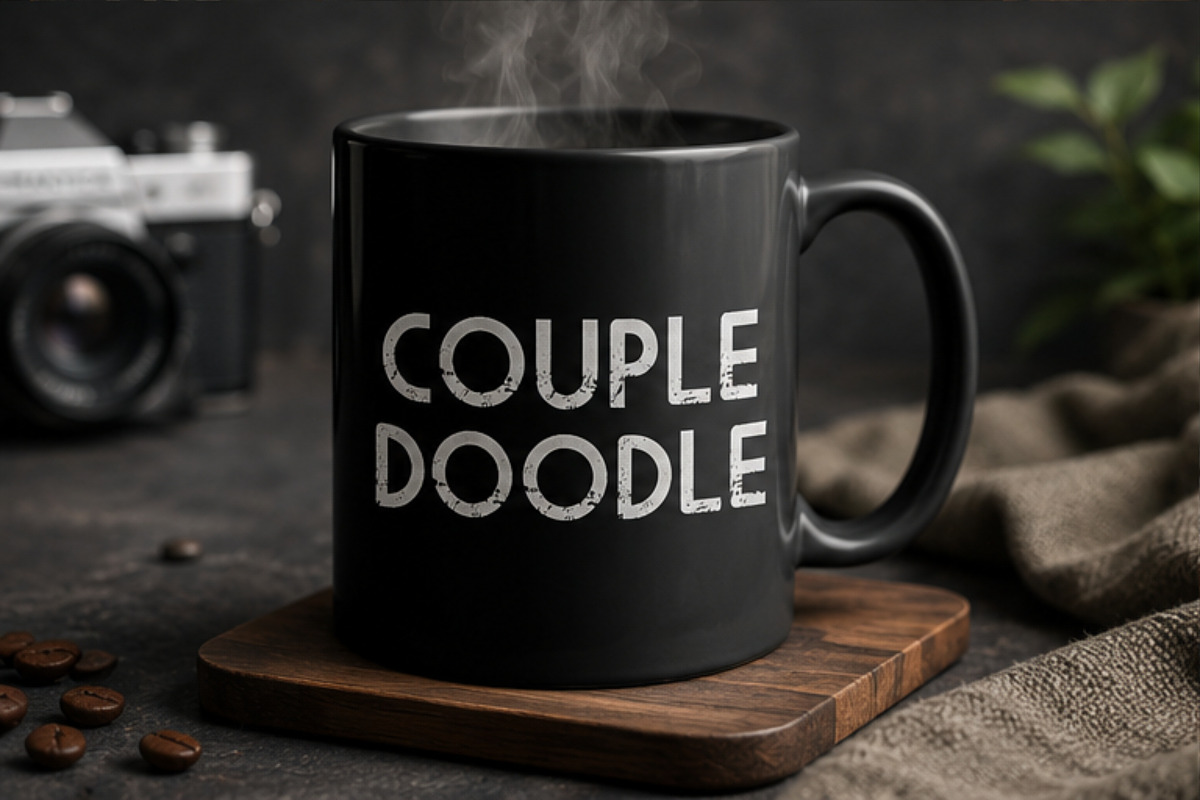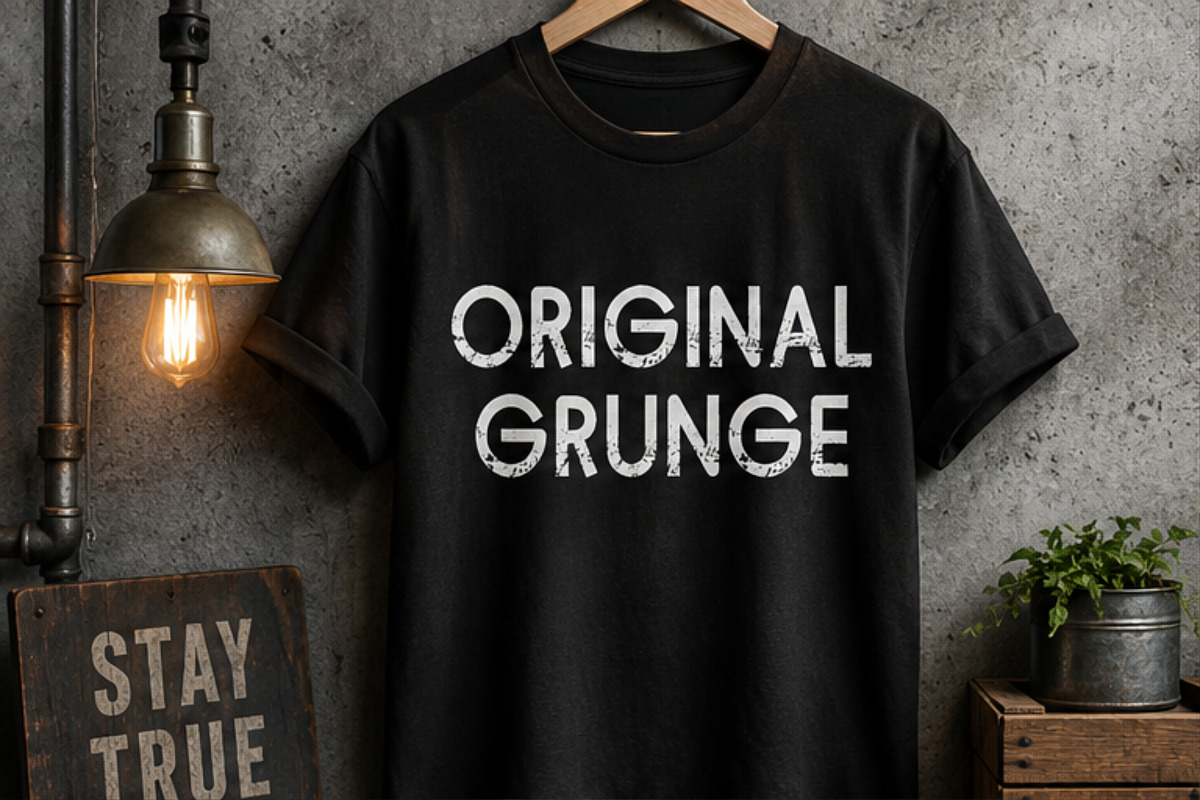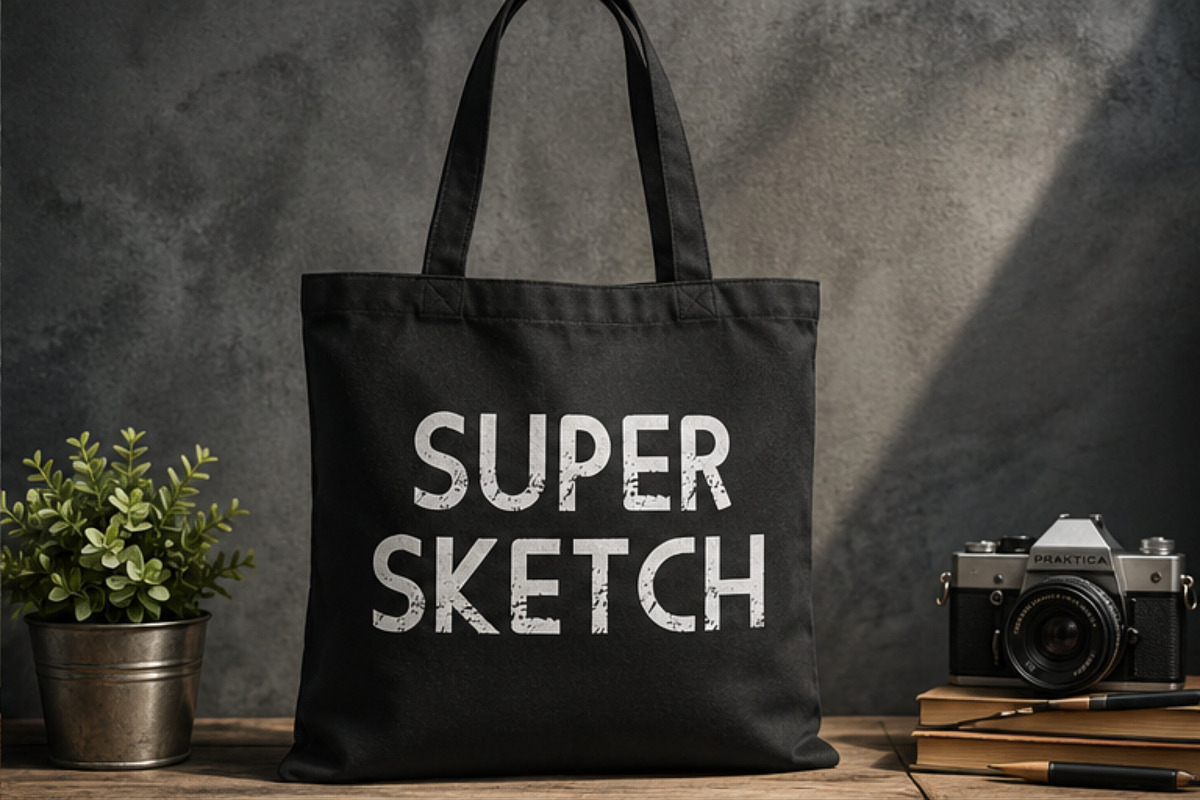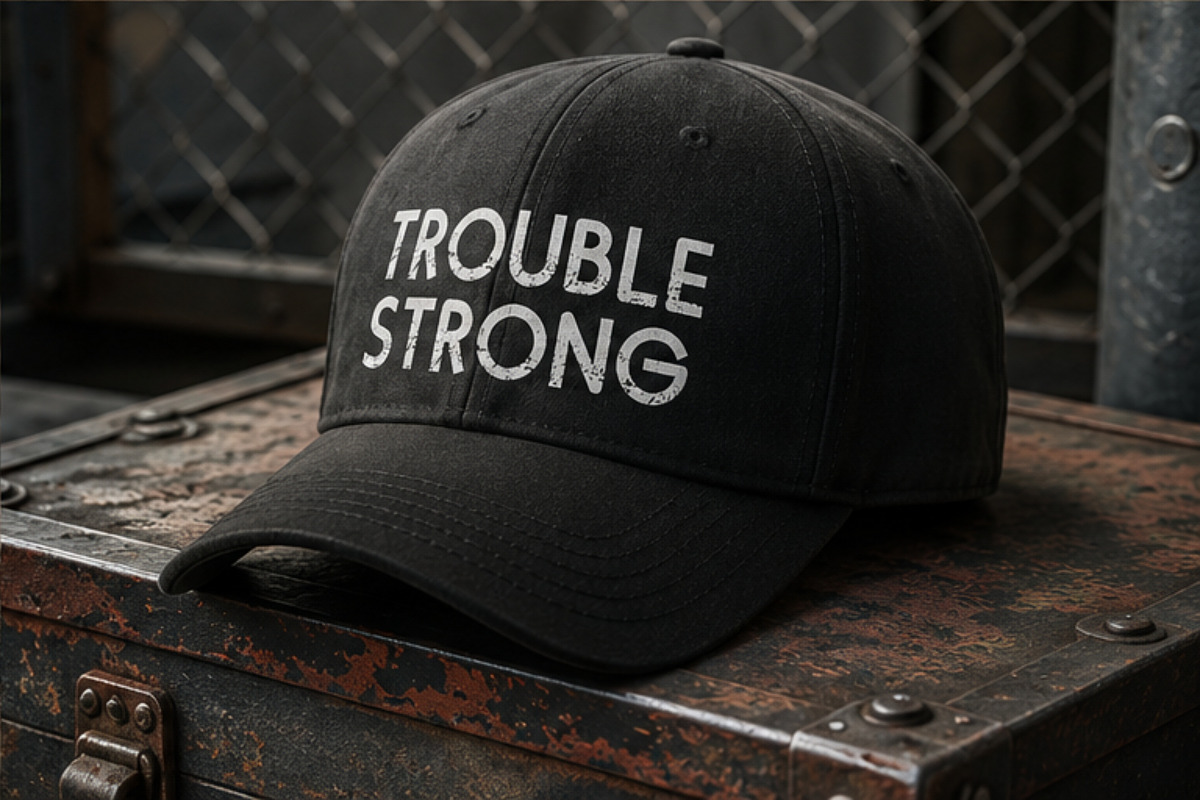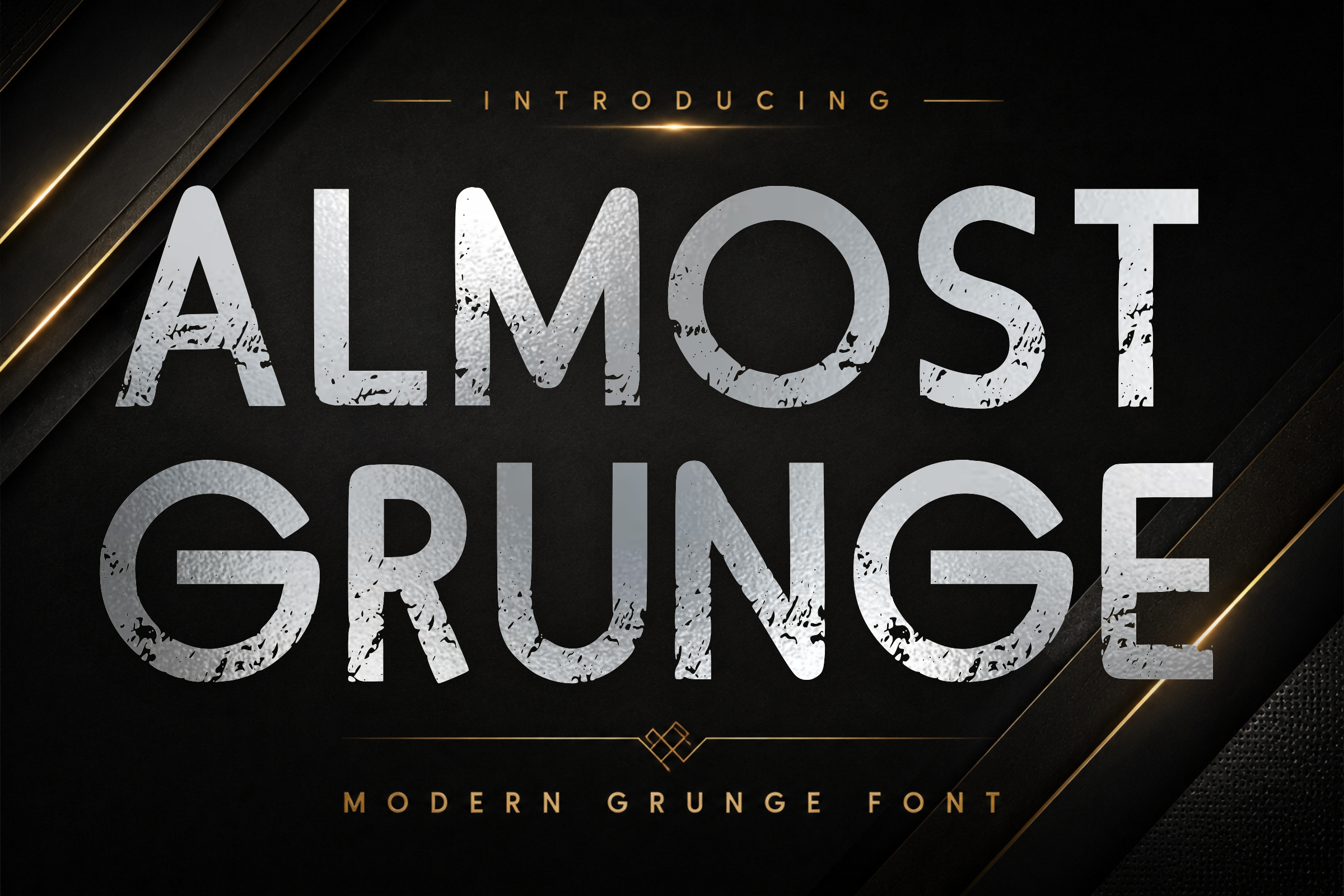
Almost Grunge - Distressed Font
Give your designs a bold and rebellious character with Almost Grunge, a modern grunge display font designed for creators who love strong typography with a distressed finish.
Featuring bold uppercase characters and authentic grunge texture, Almost Grunge combines a contemporary aesthetic with a rough, worn-in appearance. Its powerful letterforms work beautifully for eye-catching headlines, apparel graphics, posters, logos, stickers, album artwork, packaging, and more.
T-Shirt & Apparel Design
Streetwear Branding
Posters & Flyers
Logos & Branding
Stickers & Labels
Album & Music Artwork
Sports Graphics
Social Media Designs
Vintage & Retro Projects
Merchandising
Print & Digital Projects